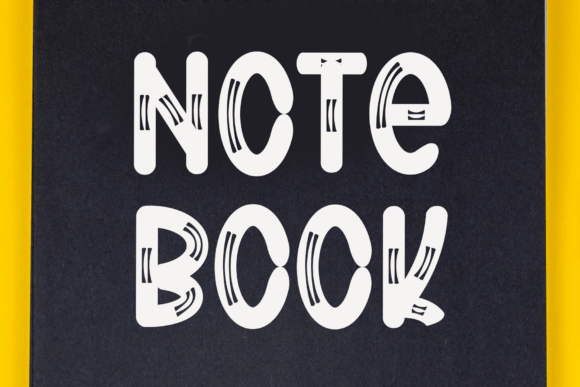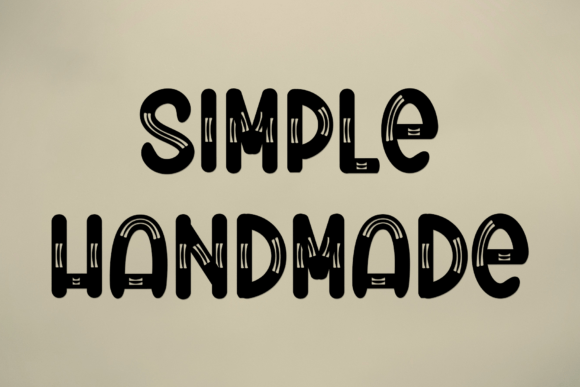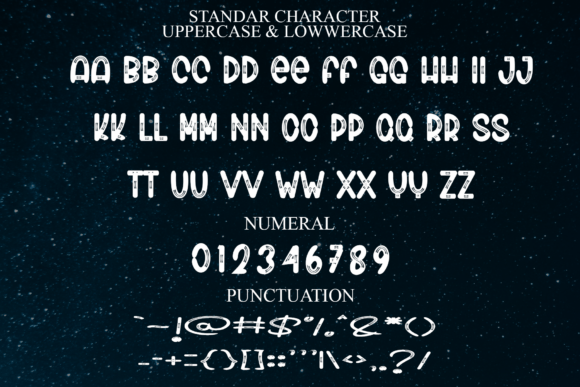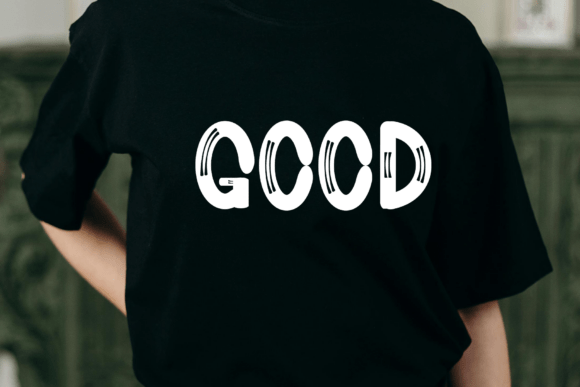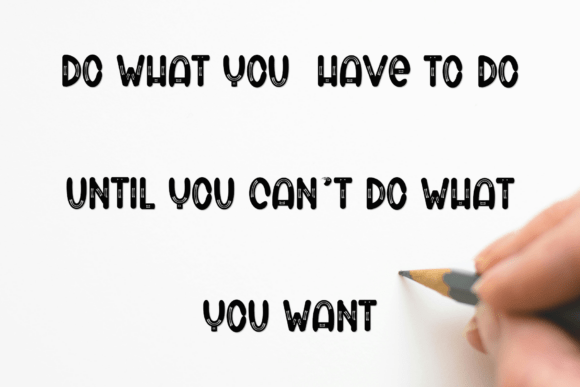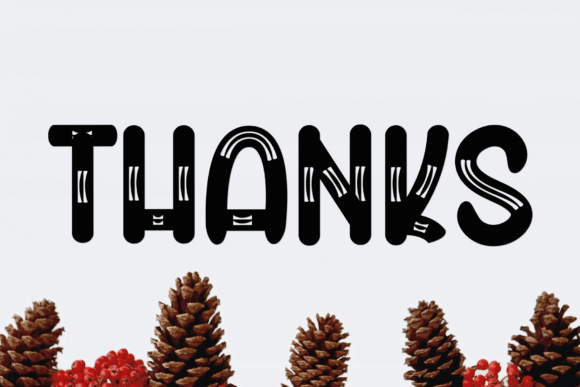
Coco Water Font: Elevate Your Designs with a Unique and Versatile Typeface
In the world of typography, a font can make or break a design. It’s the perfect blend of form and function, conveying a message while captivating the audience’s attention. If you’re a designer, crafter, or creative enthusiast looking for a font that stands out from the crowd, look no further than Coco Water Font. This beautiful and eye-catching typeface is designed with a soft, unique touch that will elevate your designs and leave a lasting impression.
The Distinctive Character of Coco Water Font
Coco Water Font boasts distinctive strokes that give it a special character, making it meaningful and versatile for future use. Its unique design ensures that your text stands out, whether you’re working on a design project, craft, or other creative work. With a wide range of characters, this font is perfect for adding a personal touch to your creations. The soft, natural look of Coco Water Font makes it an ideal choice for designers who want to add a touch of elegance and sophistication to their work.
One of the most significant advantages of Coco Water Font is its versatility. This font is perfect for a wide range of design projects, including:
- Craft projects, such as handmade cards and invitations
Whether you’re a professional designer or a crafty enthusiast, Coco Water Font is an excellent addition to your toolkit. Its unique design ensures that your work will stand out, and its compatibility with various applications makes it easy to use across different platforms.
Why Choose Coco Water Font?
So, why choose Coco Water Font over other fonts? Here are just a few reasons:
- Unique design: Coco Water Font boasts a distinctive and eye-catching design that will set your work apart.
- Versatility: This font is perfect for a wide range of design projects and applications.
- Natural look: The soft, natural design of this font makes it perfect for adding a touch of elegance and sophistication to your work.
With Coco Water Font, the possibilities are endless. Its natural look and distinctive character make it perfect for a wide range of products, from logos and branding materials to craft projects and packaging design. Don’t miss out on the opportunity to take your designs to the next level with this exceptional font.